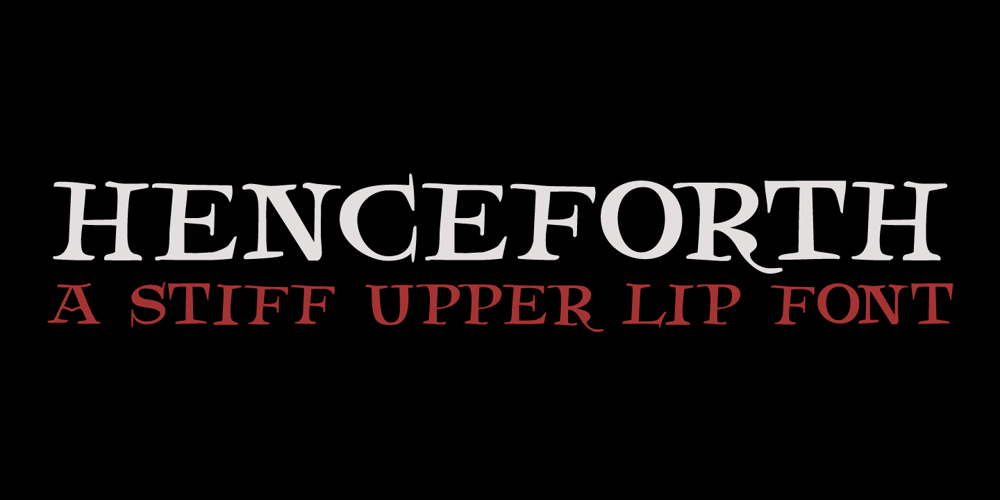
Henceforth Font Family was designed by David Kerkhoff and published by Hanoded. Henceforth contains 2 styles and family package options. Henceforth is a hand-drawn, all caps didone-style typeface. It is a little rough, a little uneven, but lively and elegant as well. Comes with an abundance of diacritics and, lo and behold, some end-ligatures as well.